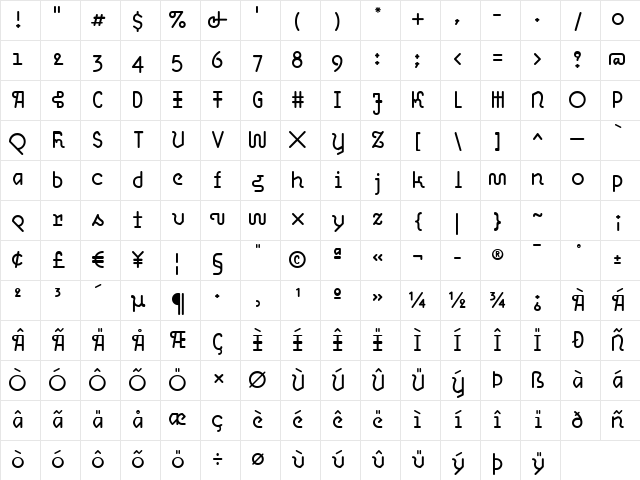
OHmygod Regular
OHmygod Family
Design Context for OHmygod
OHmygod is a composed and adaptable typeface that performs quietly and consistently across a wide range of design contexts.